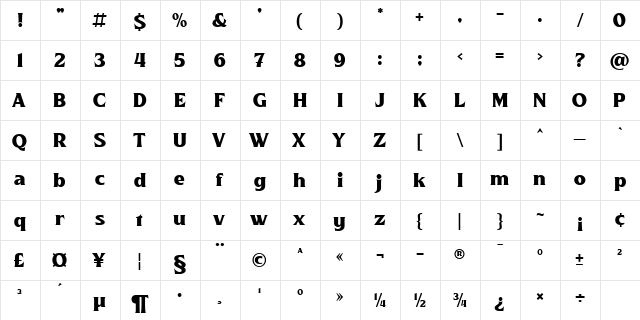
Killarney Regular
Design Context for Killarney Typeface
Killarney is a composed and adaptable typeface that performs quietly and consistently across a wide range of design contexts.